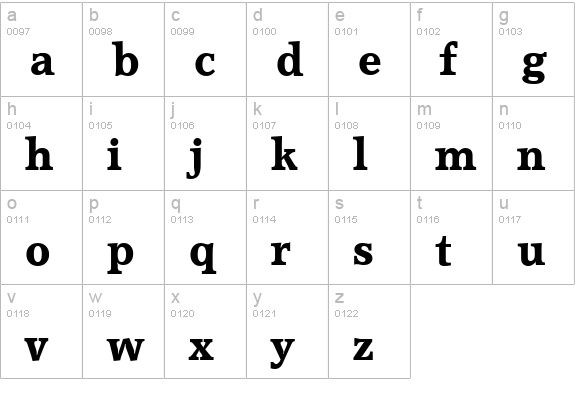
AccoladeSerial-Xbold-Regular Font Details
AccoladeSerial-Xbold-Regular is the standard, neutral variant in the AccoladeSerial typeface family \xE2\x80\x94 well suited to general body text, paragraphs, and standard typographic work.
AccoladeSerial-Xbold-Regular is a versatile and striking typeface that exudes confidence and modernity. Its bold and commanding presence makes it the perfect choice for headlines, titles, and other design elements that require a strong visual impact. The sleek lines and sharp edges of this font give it a contemporary edge while maintaining a timeless appeal. What makes AccoladeSerial-Xbold-Regular even more appealing is that it is available for free download at FontsMarket.com. This means that designers and creatives can easily access this powerful font without having to worry about any additional costs. Whether you're working on a branding project, a poster design, or any other creative endeavor, AccoladeSerial-Xbold-Regular is sure to make a bold statement and elevate your work to the next level. Download it today and unleash its full potential in your designs.